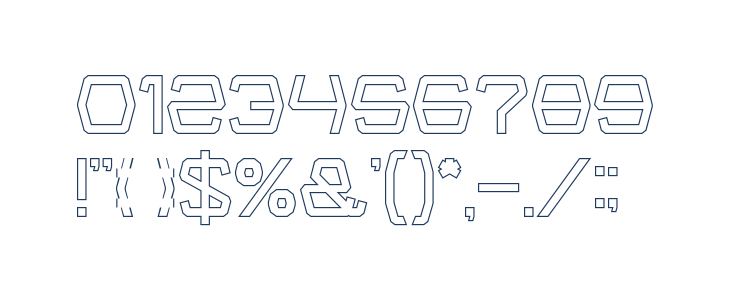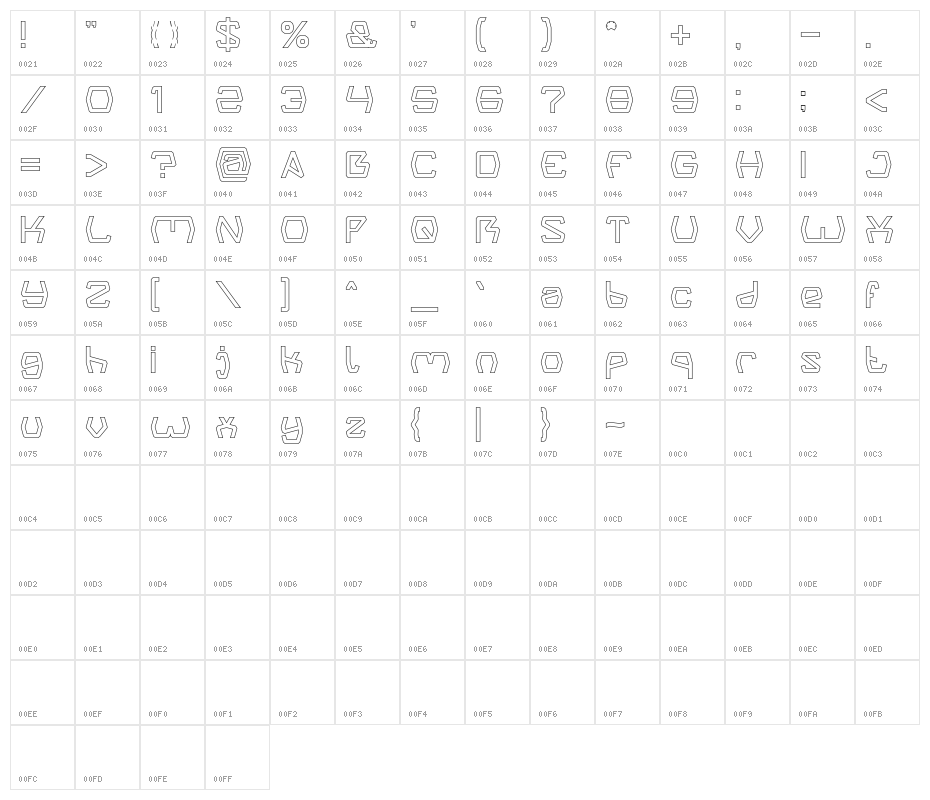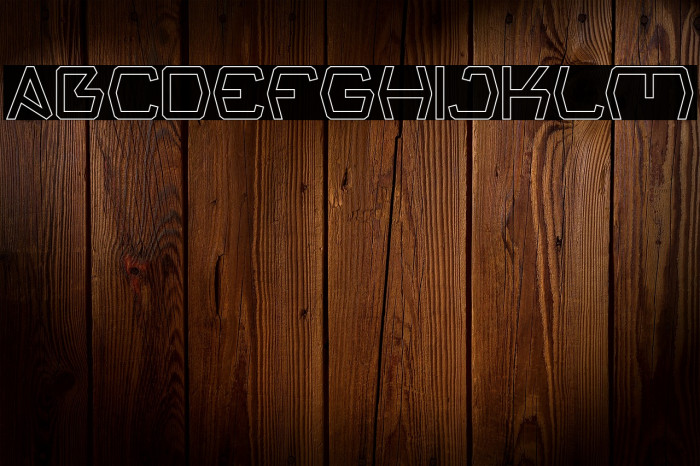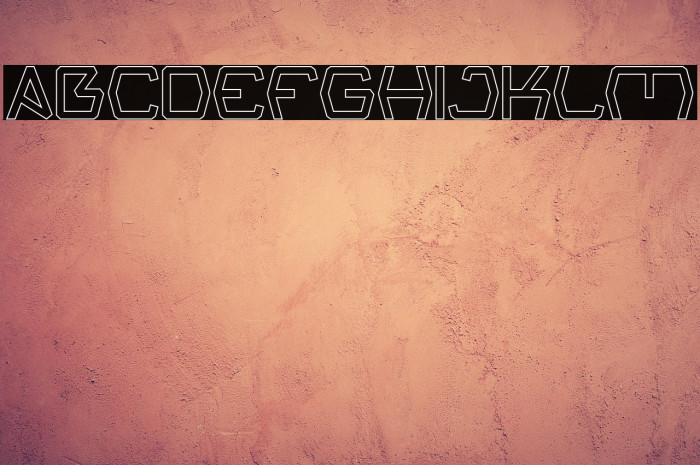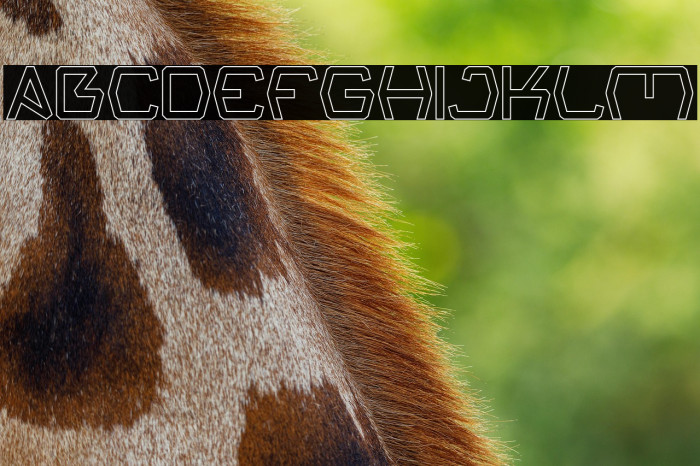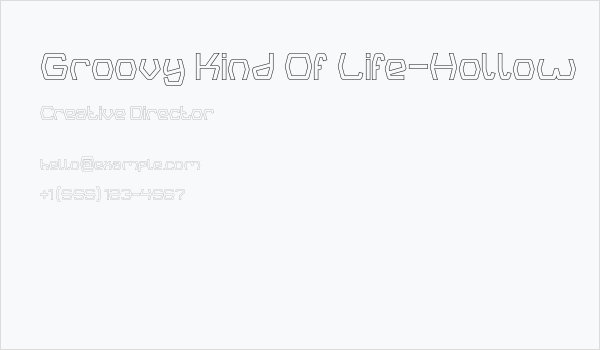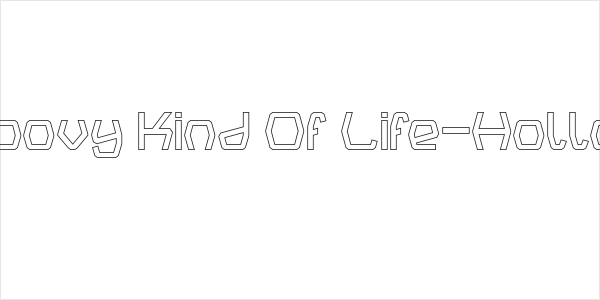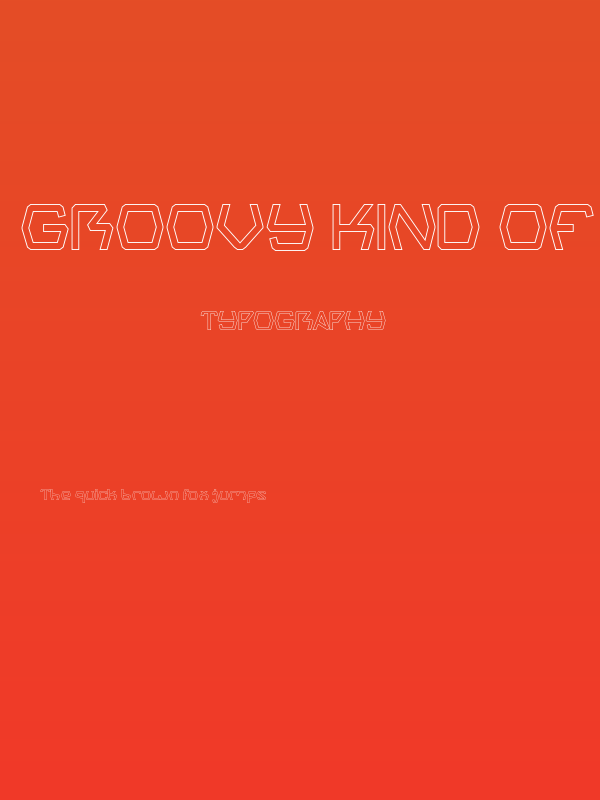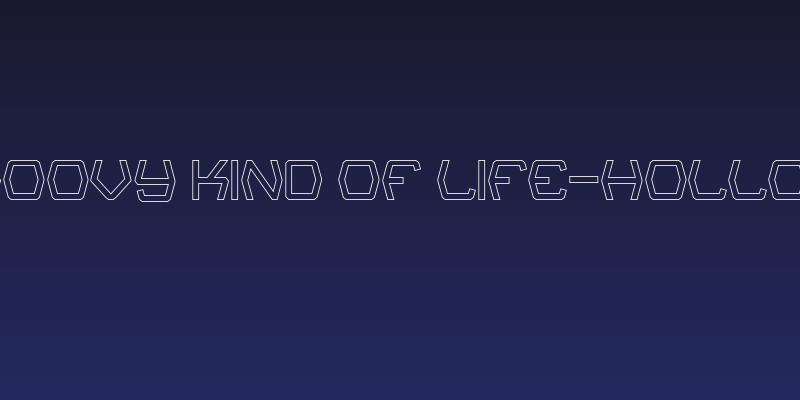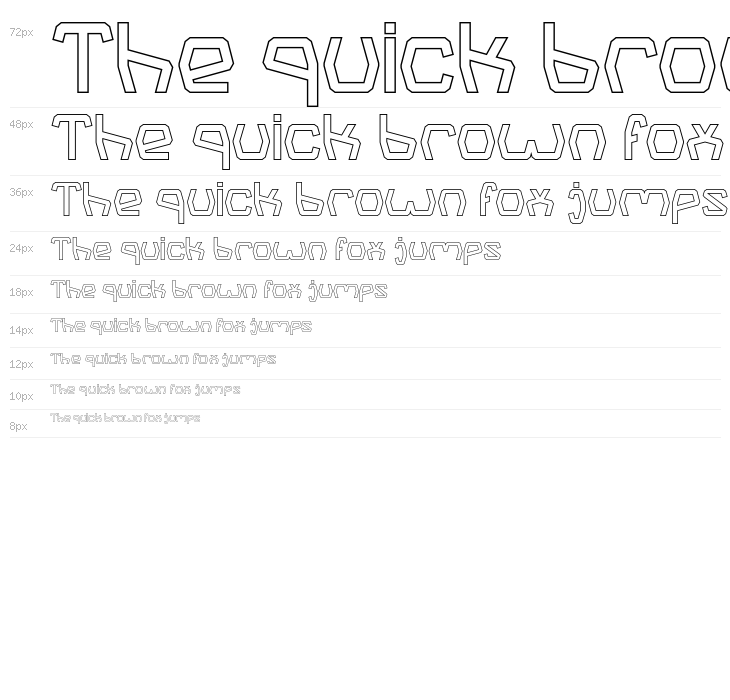
Groovy Kind Of Life-Hollow Font
Groovy Kind Of Life-Hollow Description
This font features a unique hollow design with a geometric and angular style. The characters are outlined, giving them a modern and futuristic appearance. The uppercase and lowercase letters maintain a consistent structure, with sharp edges and clean lines. The numerals and special characters follow the same design principles, ensuring uniformity across the font. This style is both eye-catching and versatile, suitable for projects that require a bold statement. The hollow nature of the font allows for creative layering and color usage, making it ideal for digital and print media.
| Proposed Projects | Ideal for digital artwork, posters, album covers, and branding that requires a bold and modern aesthetic. |